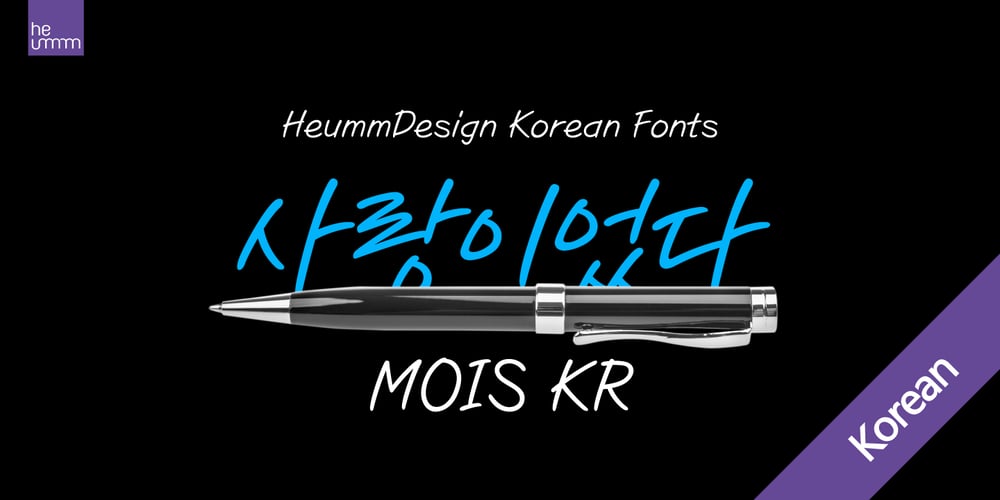
HU Mois KR
HU Mois KR font
HU Mois KR Font Family was designed by Beopho Choi and published by Heummdesign. HU Mois KR contains 1 styles and family package options. HU Mois KR is a calligraphy typeface with a sense of speed and a naturally slanted feel as if writing. It also gave a sense of free rhythm of handwriting. Includes Korean from the existing ‘HU Mois’ font.